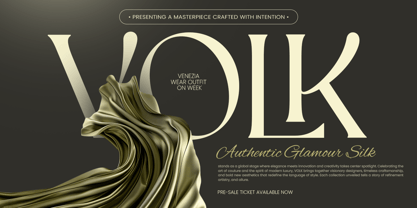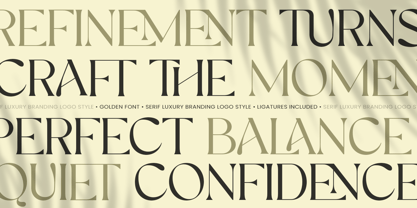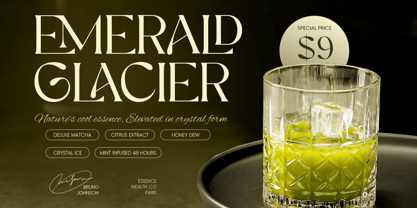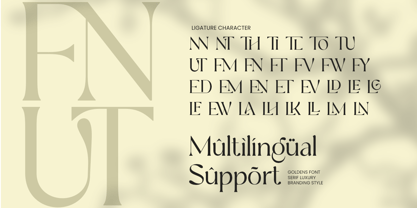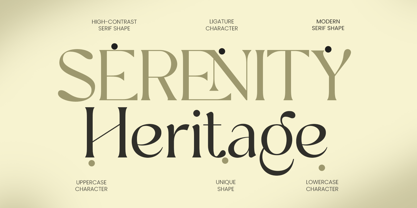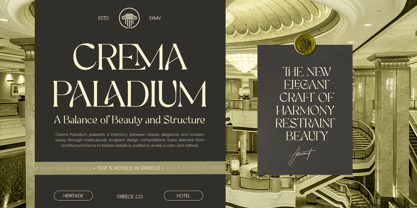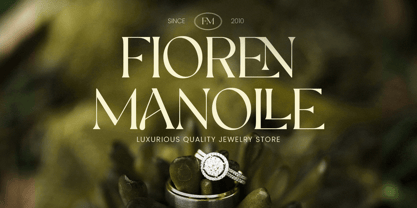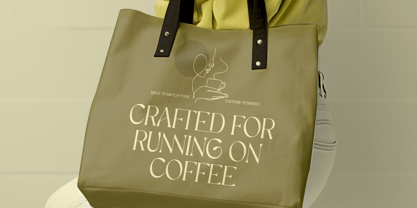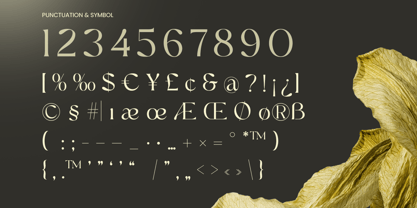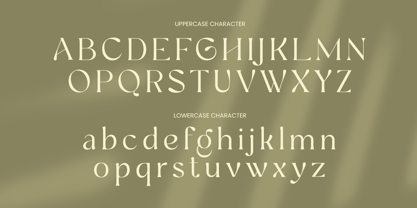
Goldens is a serif luxury branding logo font created to deliver an elevated, premium presence with timeless sophistication. With refined serif details and balanced proportions, this typeface brings an elegant tone that feels exclusive, polished, and confidently high-end.
Perfect for luxury branding, fashion and beauty logos, boutique identities, jewelry packaging, perfume labels, and upscale editorial layouts, Goldens shines across logos, headlines, product packaging, invitations, signage, and social media campaigns. Its classic serif character adds prestige while remaining modern enough for contemporary brand systems.
Whether you’re crafting a premium logotype or building a complete luxury identity, Goldens helps your typography feel intentional, expensive, and unforgettable in both print and digital designs.
Goldens – Luxury Serif Branding Features
Elegant serif letterforms crafted for luxury logotypes
Ideal for premium branding, fashion, beauty, and boutique identity
Perfect for logos, packaging, editorials, and upscale headlines
Balanced proportions for a classy, timeless visual tone
Includes uppercase, lowercase, numerals, and punctuation
Crisp readability for both print production and digital use
OpenType features for refined typographic styling
Goldens